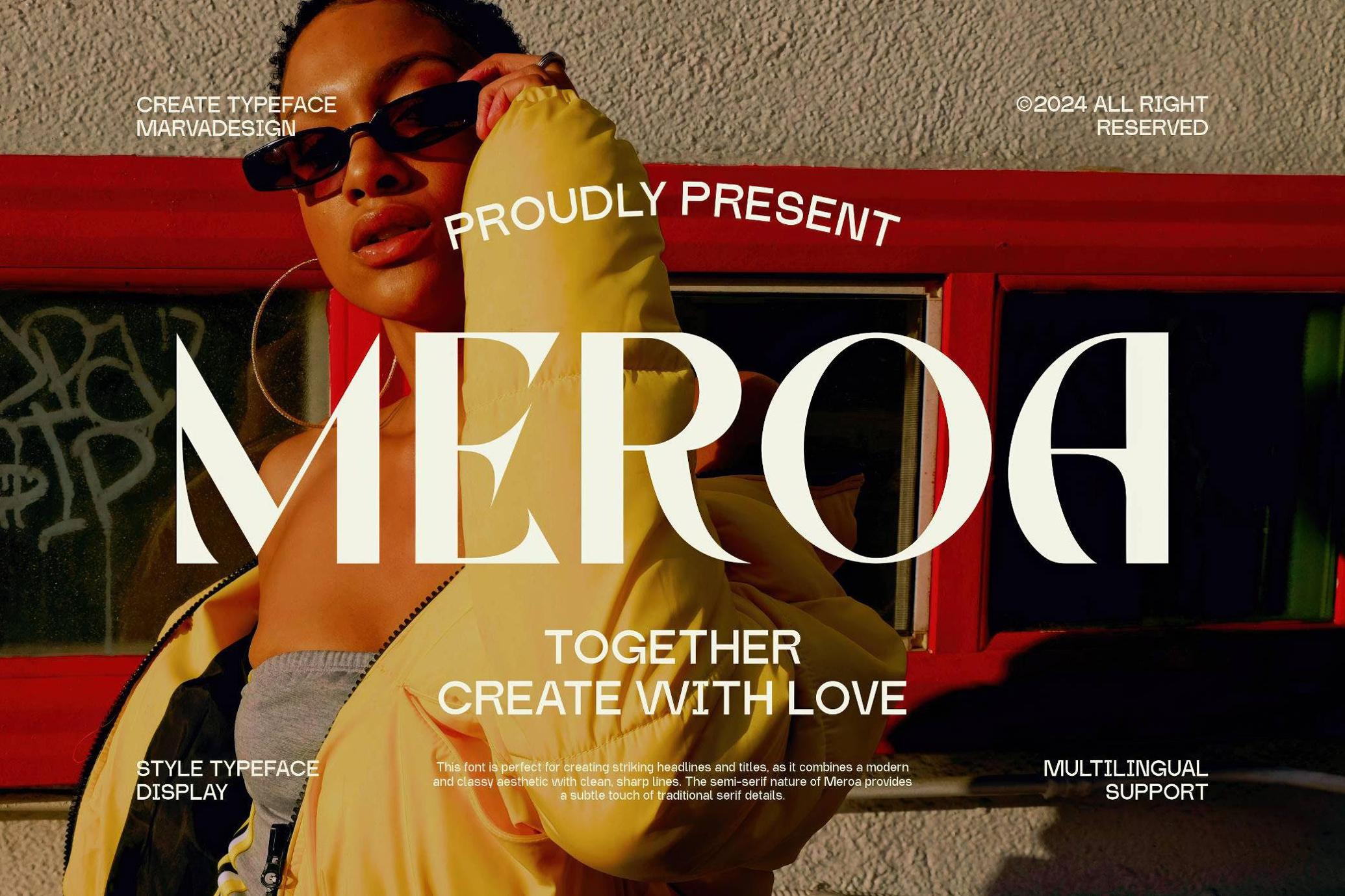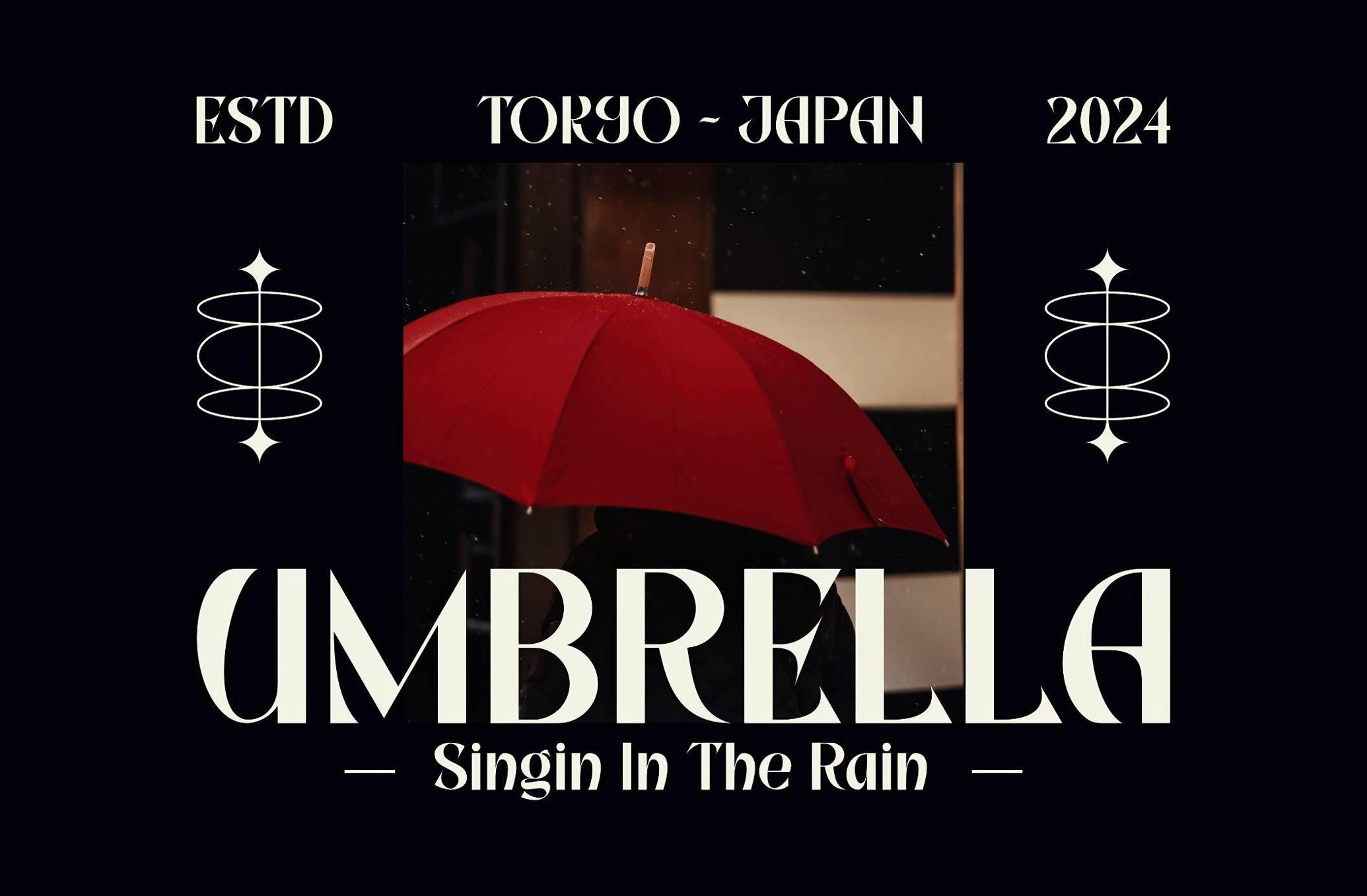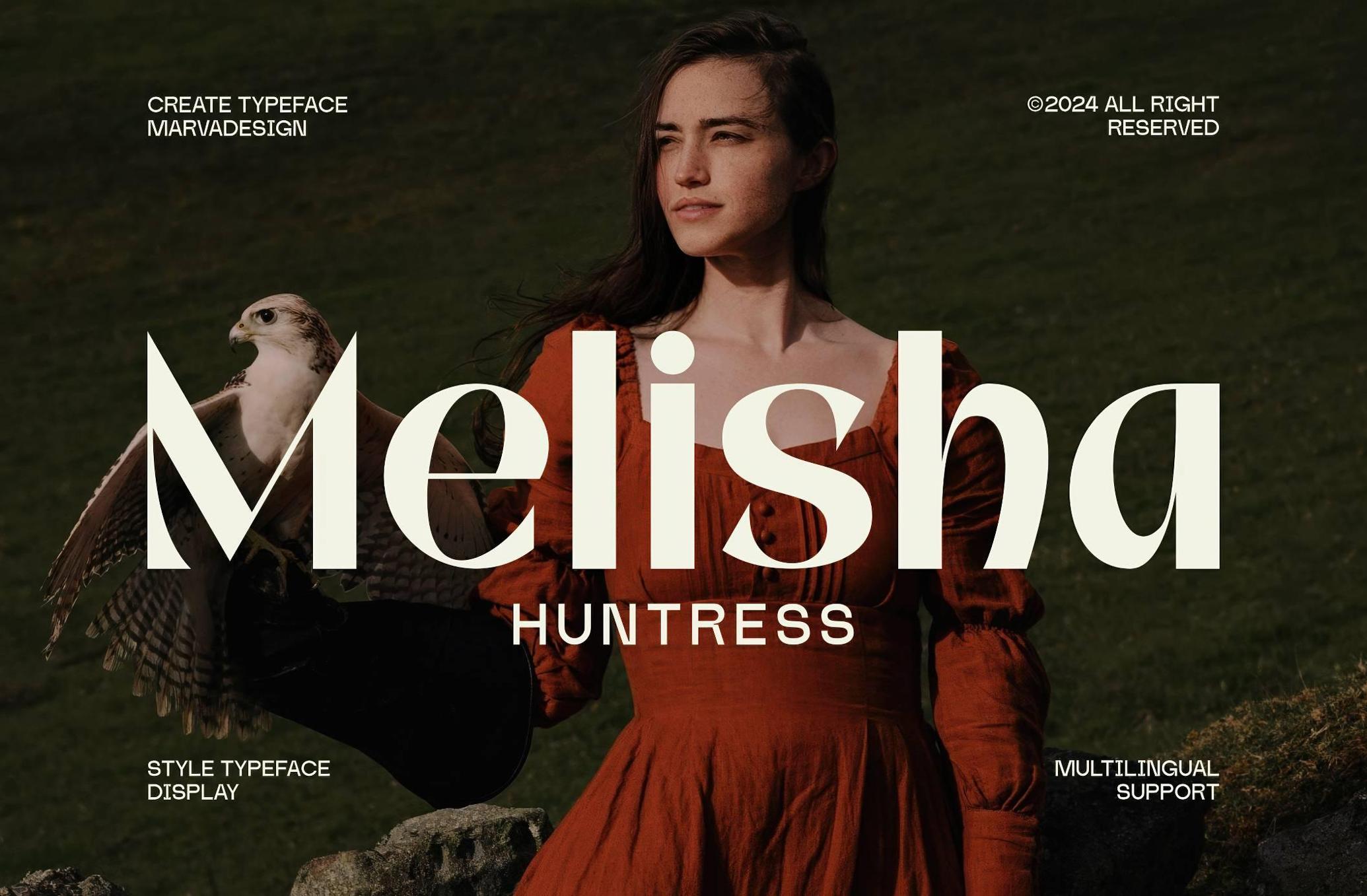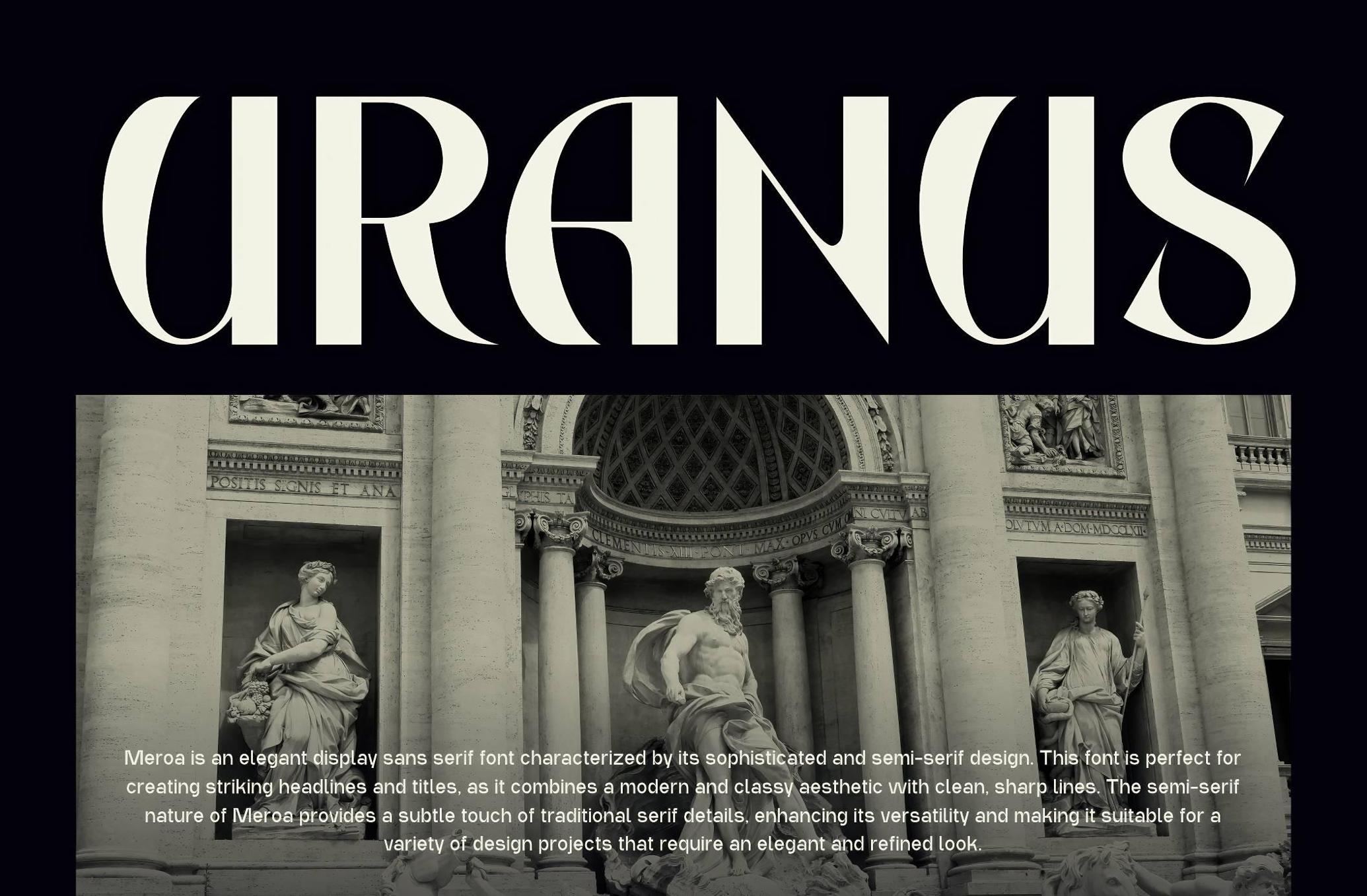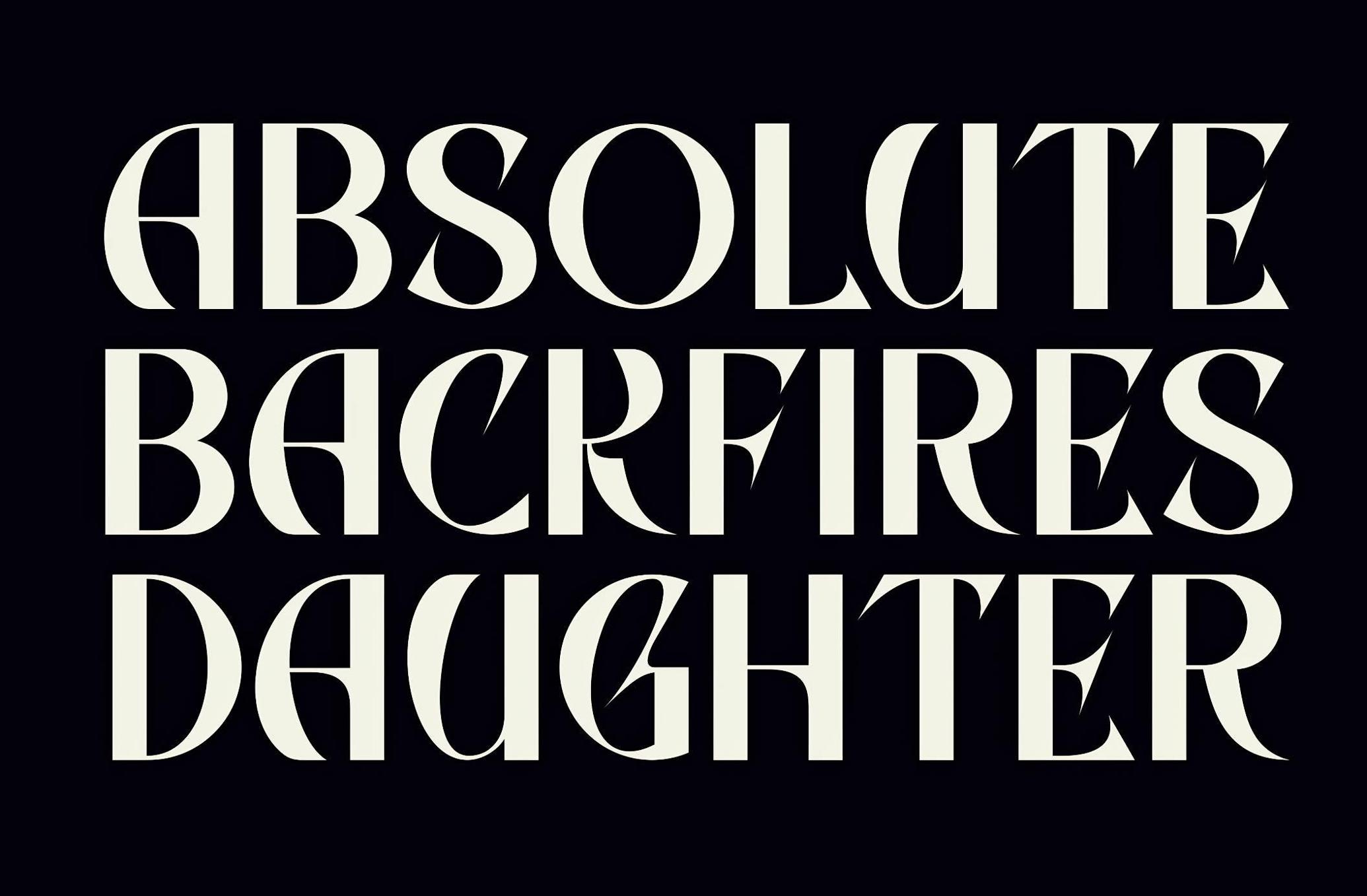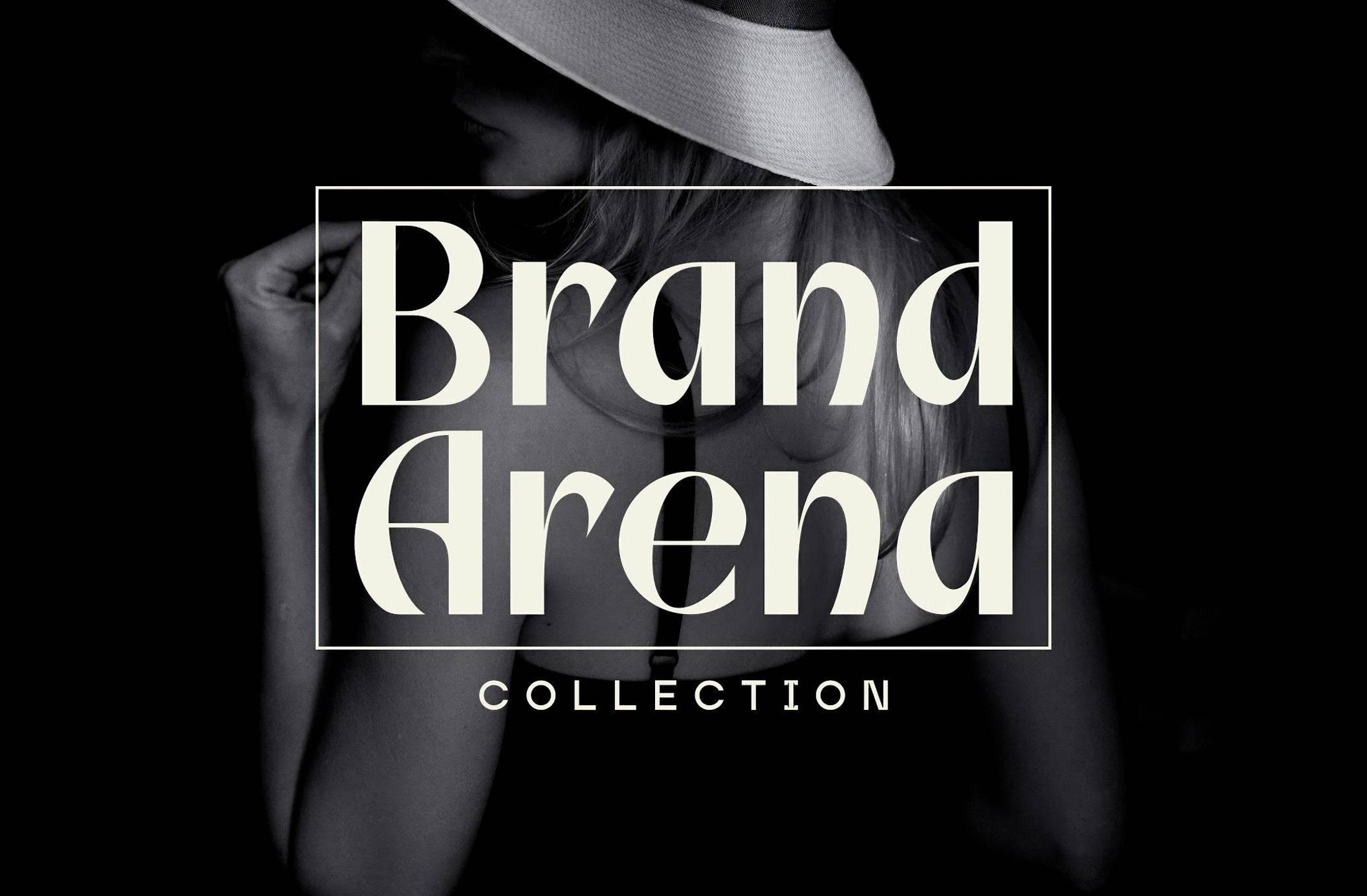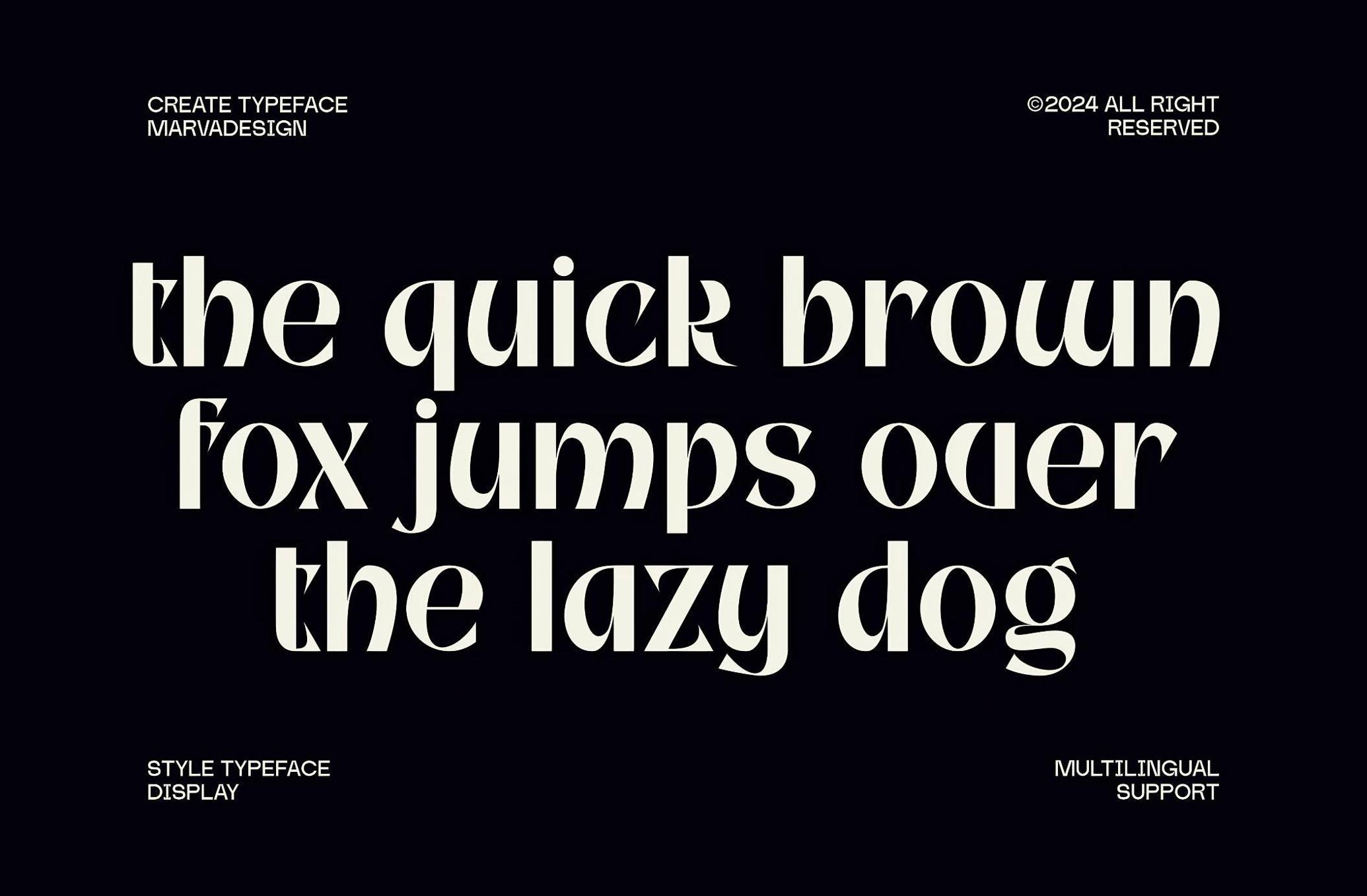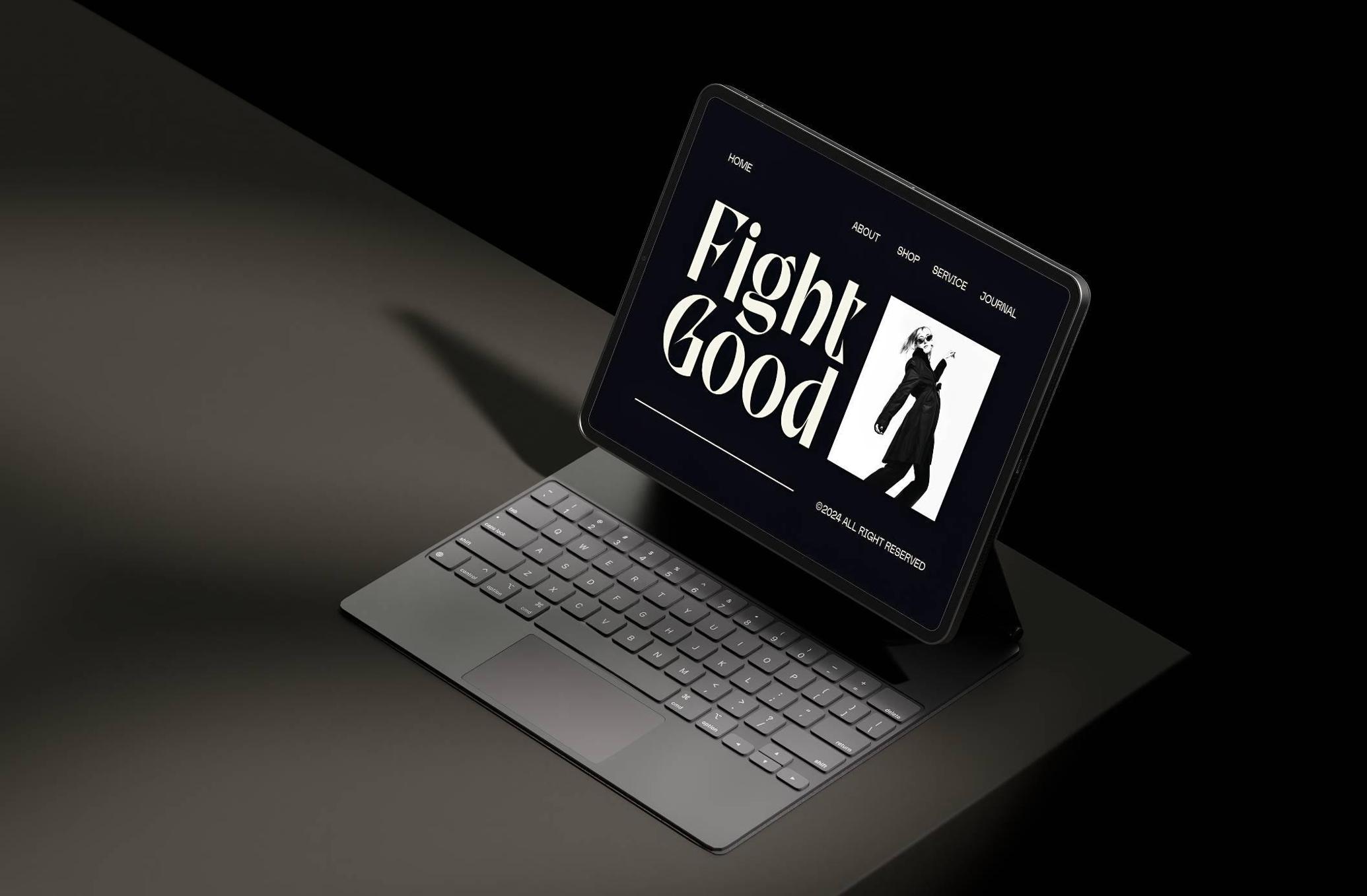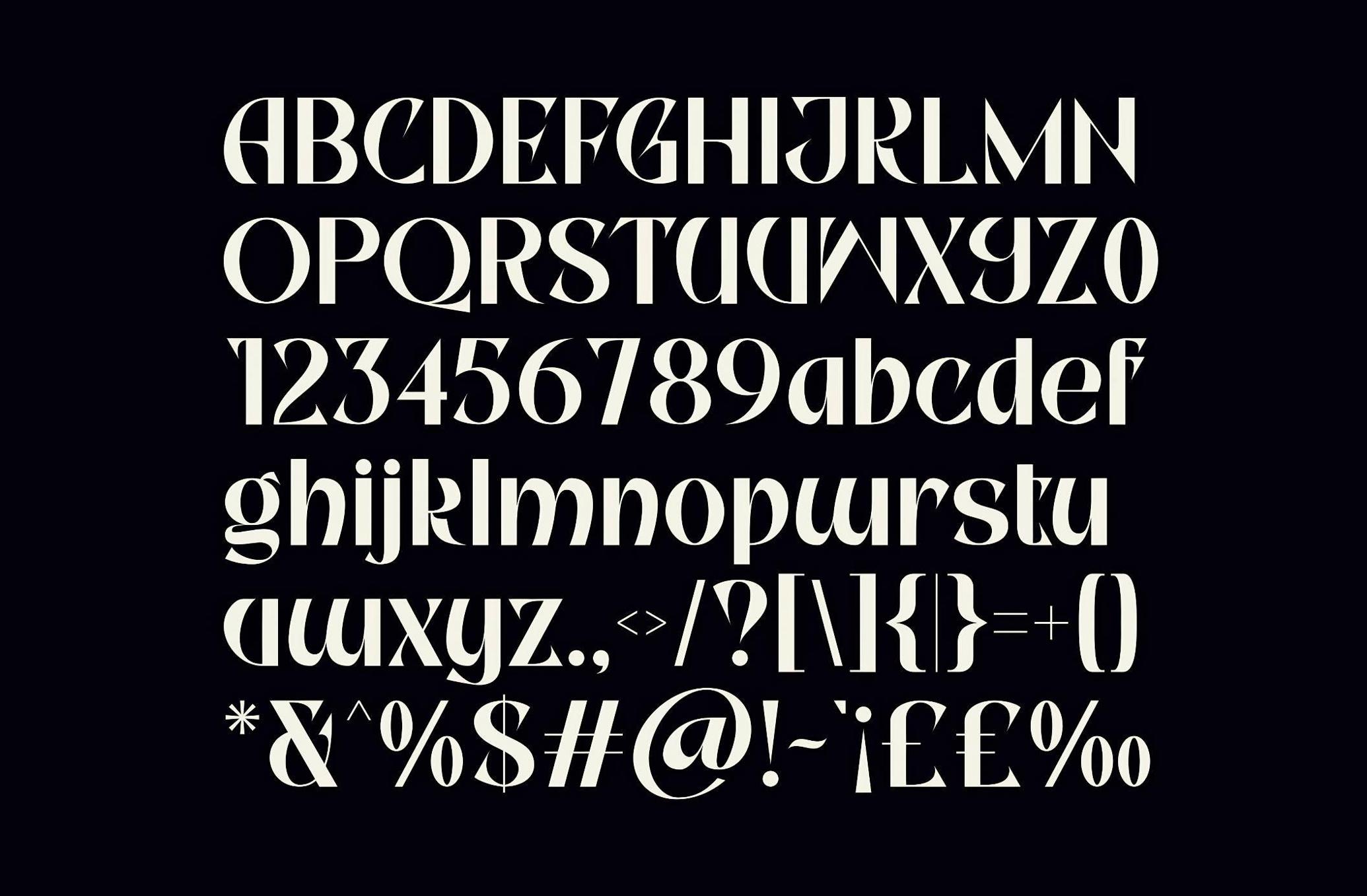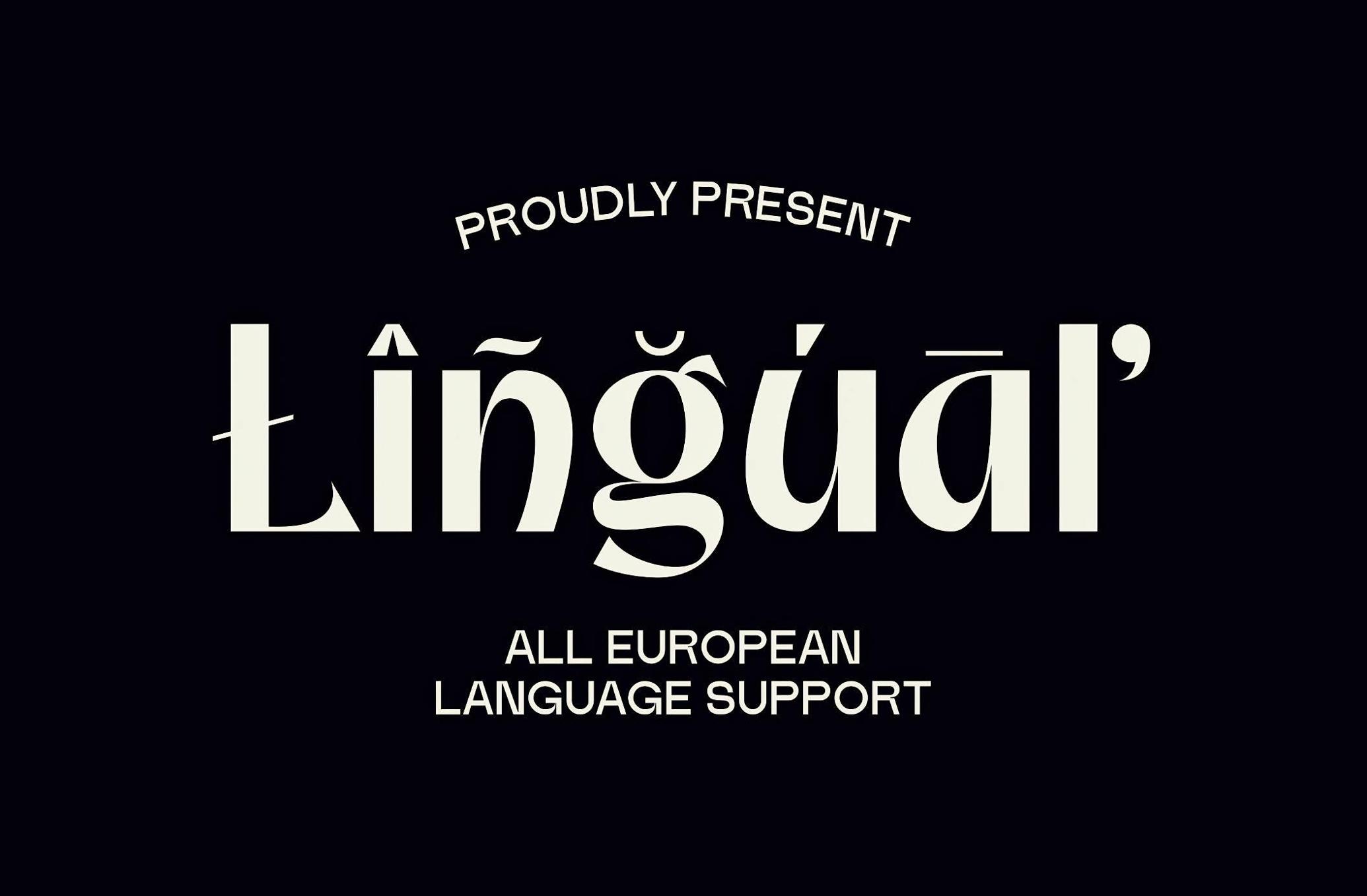
Meroa — Display Sans Serif Font
Meroa
Meroa font moves with quiet intent, as it exudes the sense of stillness in its rhythm. It’s like architecture in soft morning light or the precision of a well-cut silhouette. Its semi-serif cuts give the letters a sharp presence, perfect for commanding attention in headlines, packaging, or design work that craves elegance with an edge. The contrast between curves and clean slices makes Meroa feel upscale but unpretentious, refined but totally modern. Delivered in OTF and TTF formats, this font comes complete with uppercase, lowercase, and multilingual support.